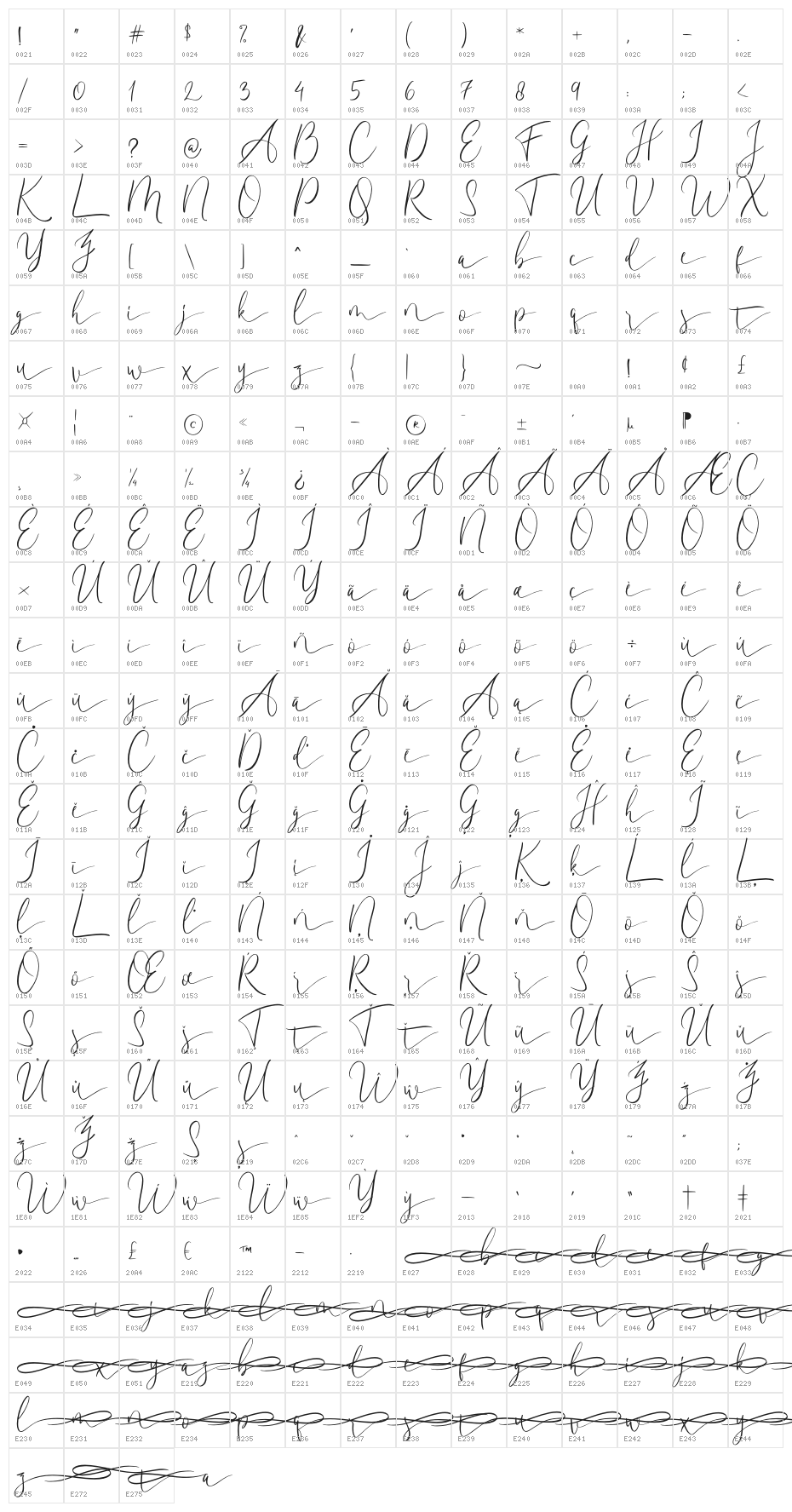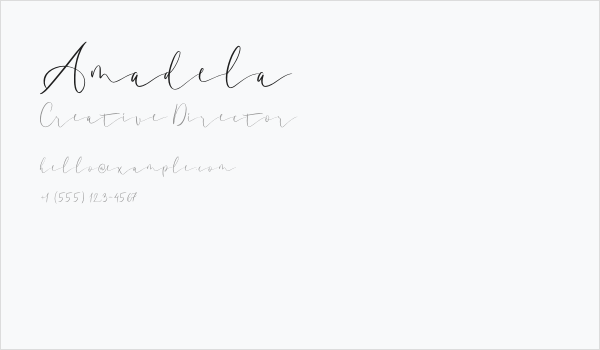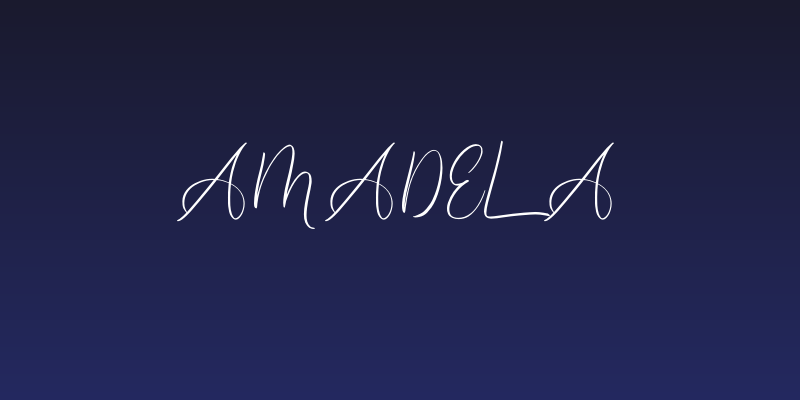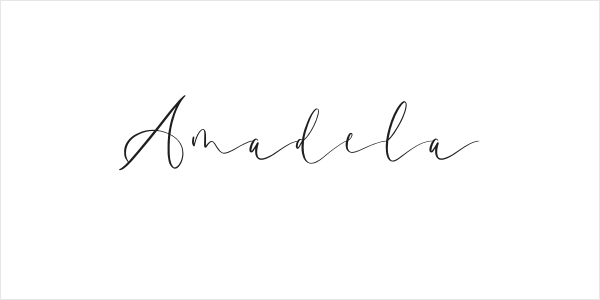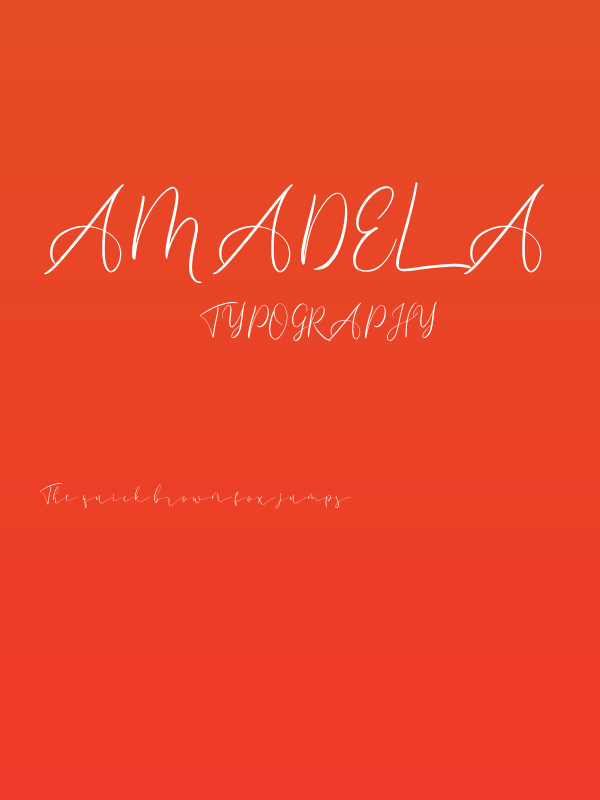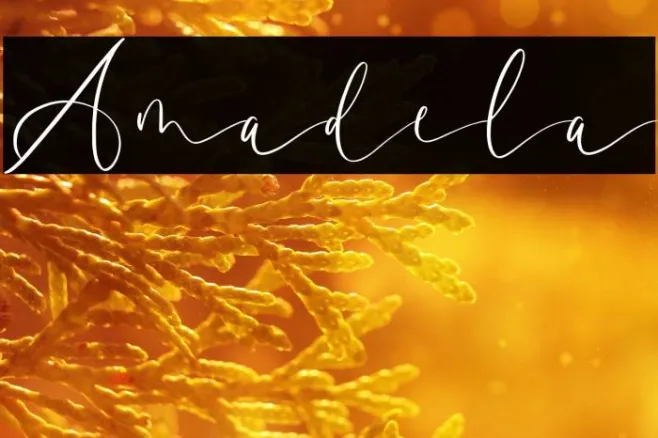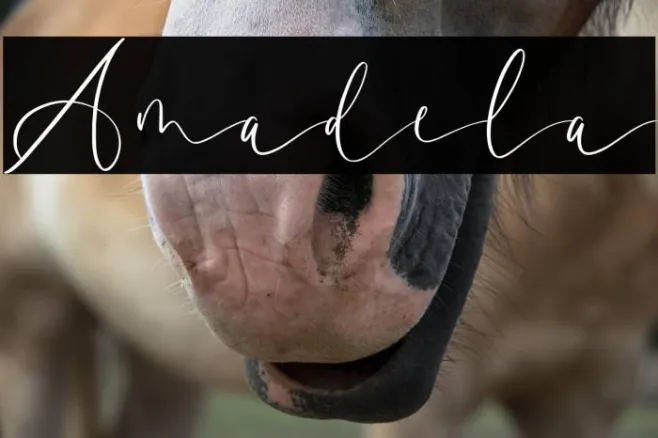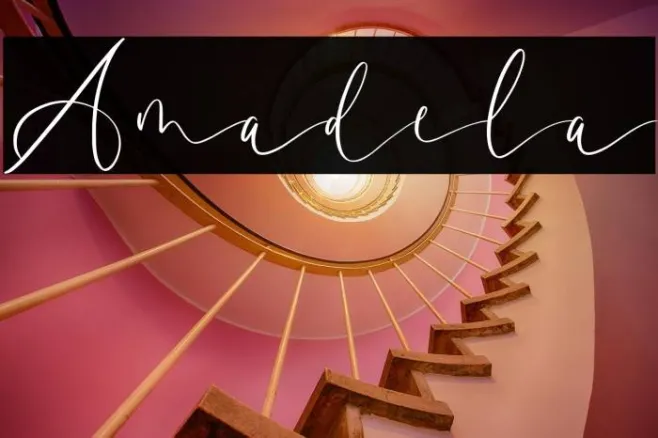
Amadela Font
Amadela Description
This font exhibits a flowing, cursive style with elegant, sweeping strokes that convey a sense of sophistication and grace. The uppercase letters are bold and slightly slanted, with decorative flourishes that add a touch of flair. The lowercase letters maintain a consistent, fluid connection, enhancing the script's natural handwriting appearance. Numbers and special characters are crafted with the same attention to detail, ensuring a cohesive look across all elements. The overall design is both stylish and legible, making it suitable for a variety of creative applications.
| Overall Style | Elegant, Decorative |
| Proposed Projects | Ideal for wedding invitations, greeting cards, branding, and elegant packaging designs. |